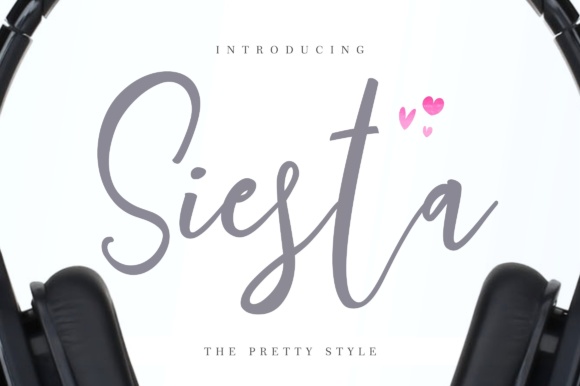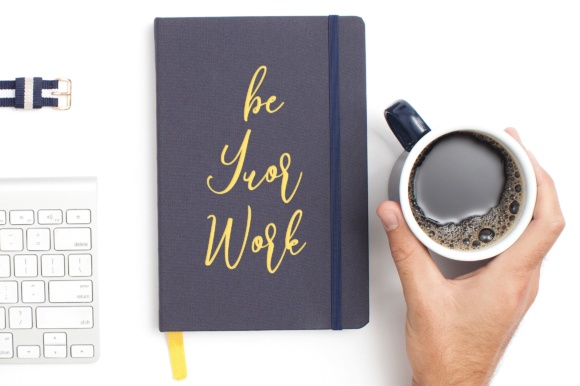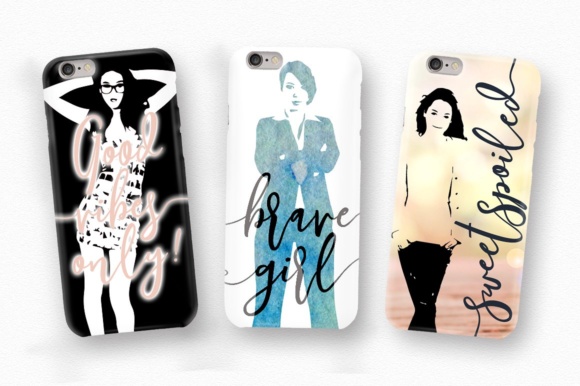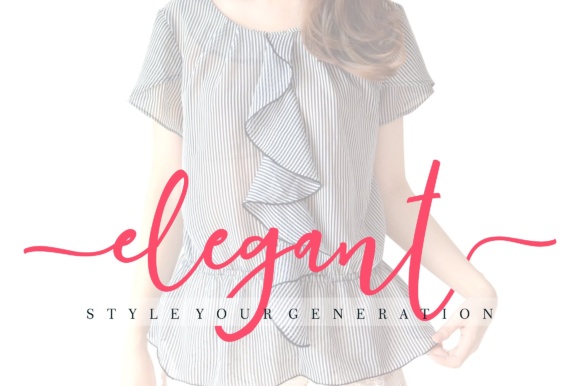
Siesta Font
About Siesta Font
Siesta is a modern and fun typeface which is inspired by modern branding. Siesta can be combined with other script typefaces as well as sans serif typefaces.
Siesta is perfect for your wedding invitations, street advertising, Instagram, t-shirt designs, branding and much more.